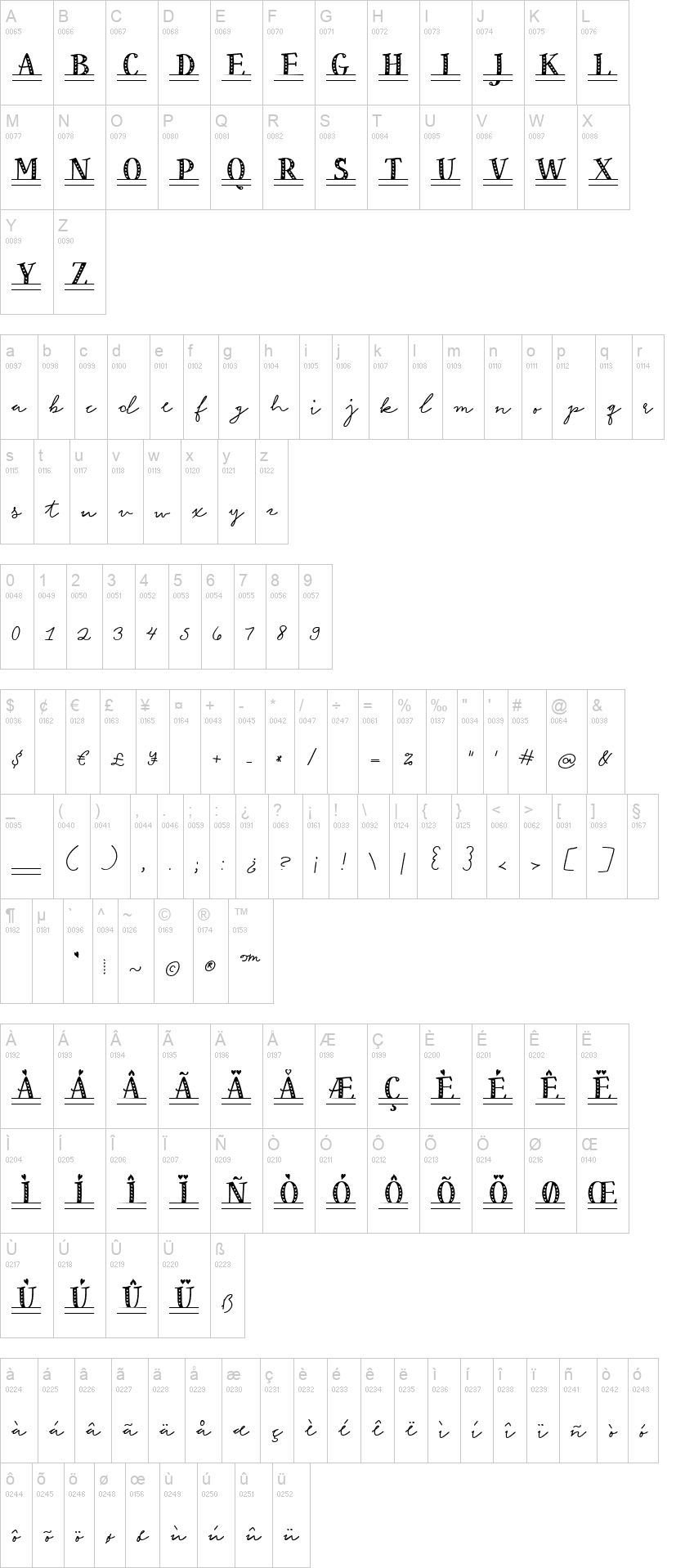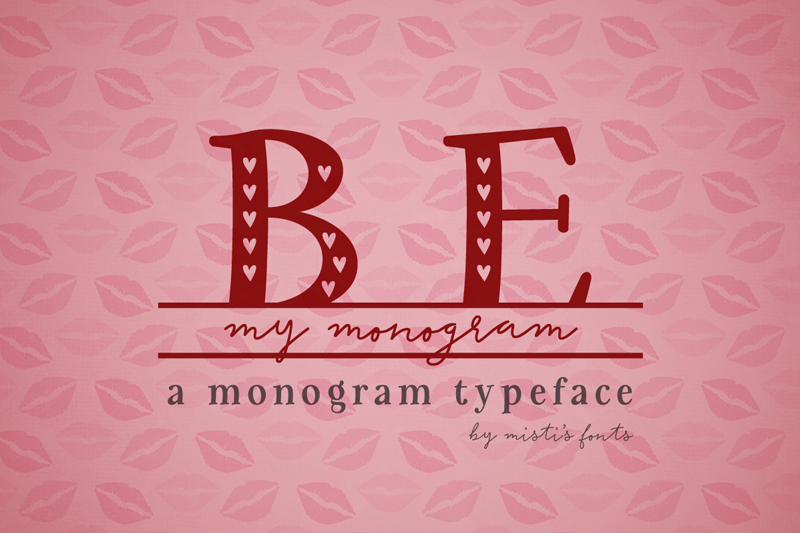
Note of the authorBe My Monogram is a heart-filled Valentines Day duo styled font. It is a great choice for creating personalized mugs, tote bags, keychains, wall prints, home décor and so much more!